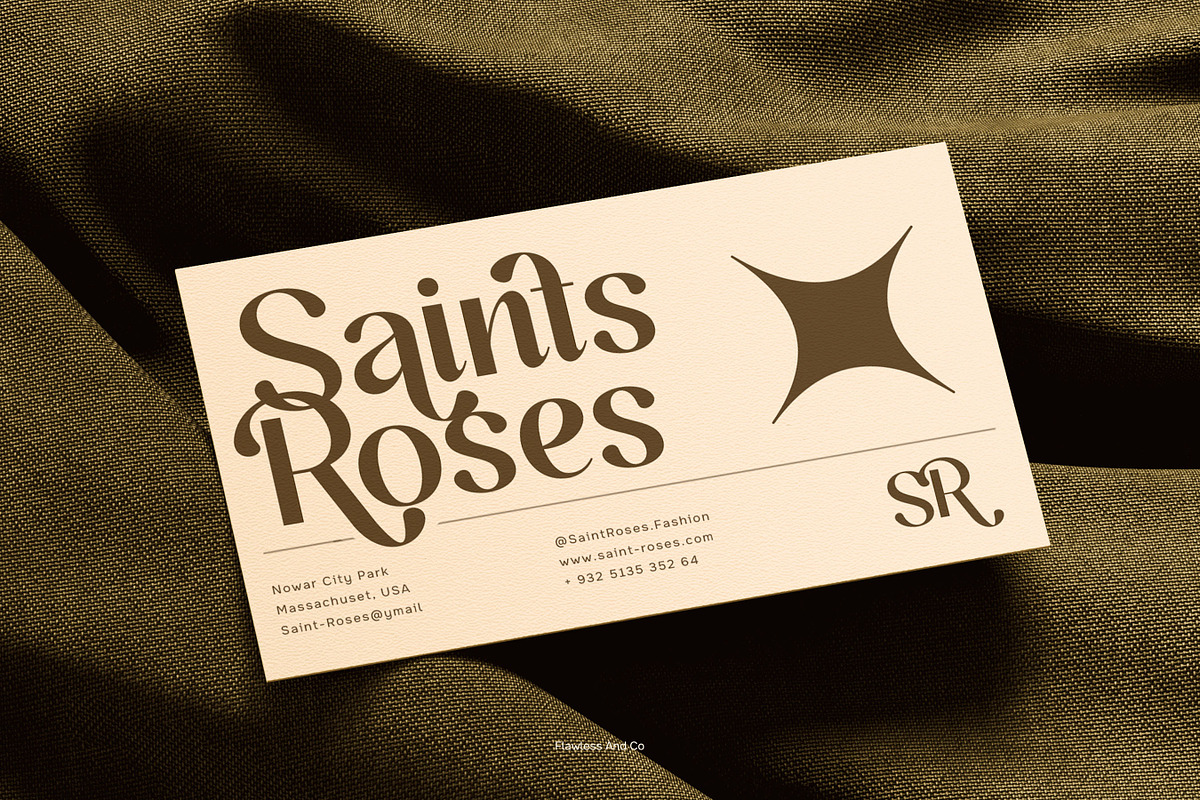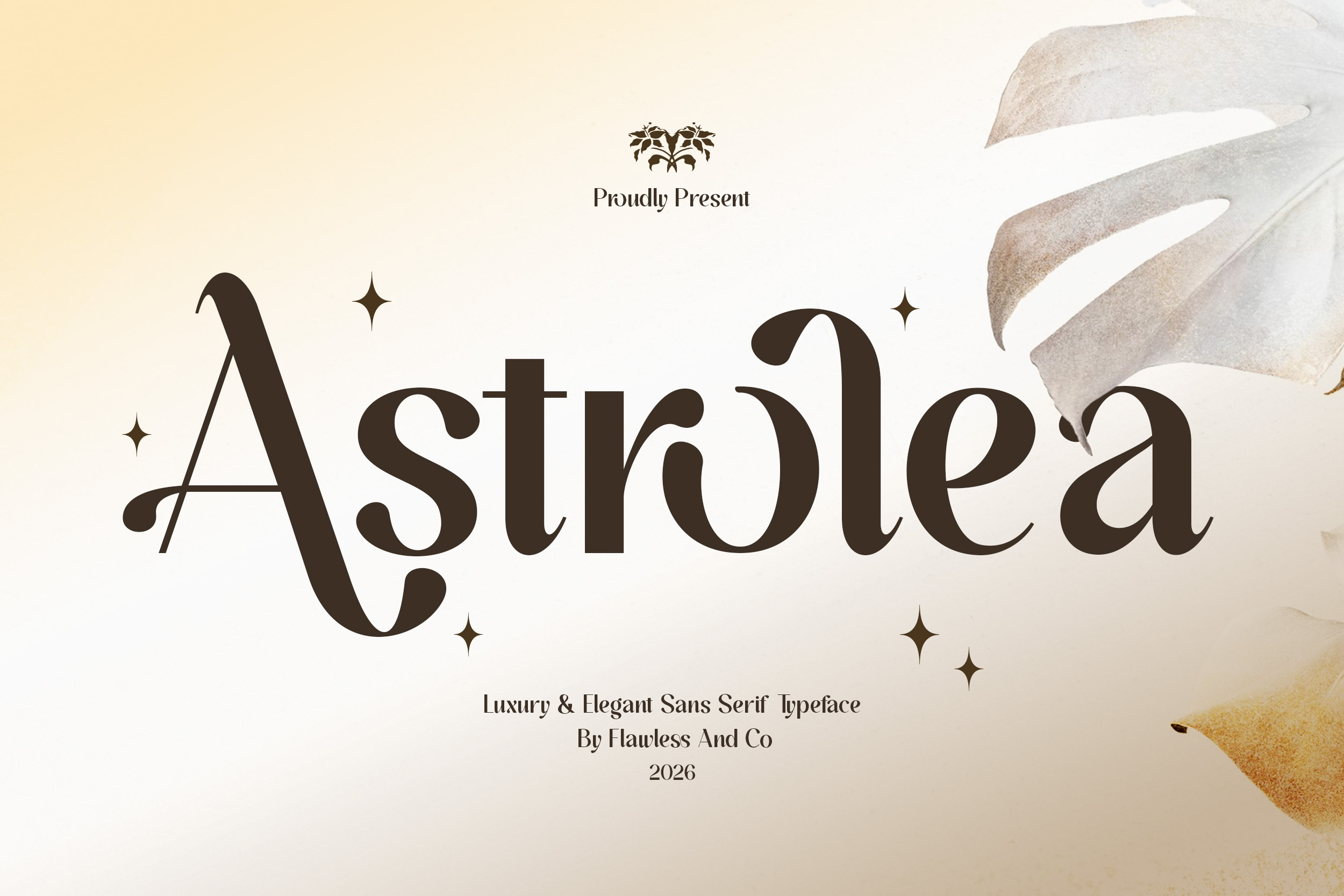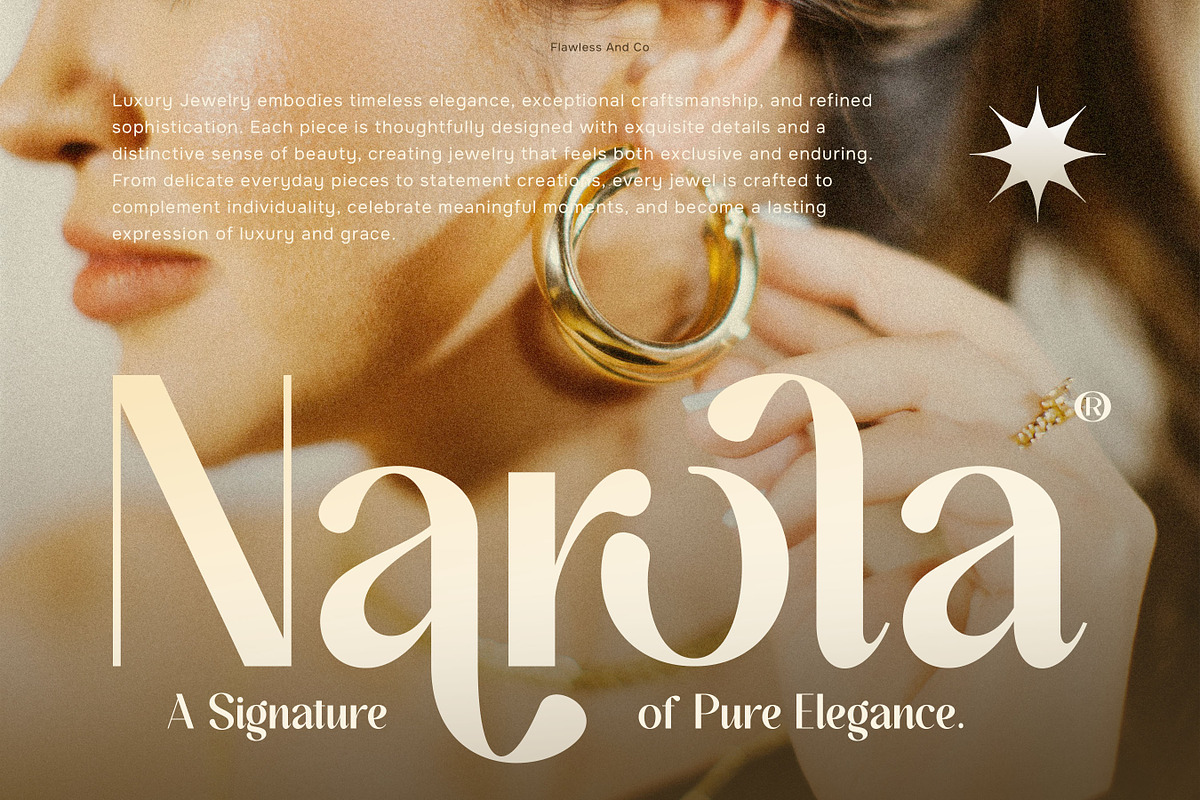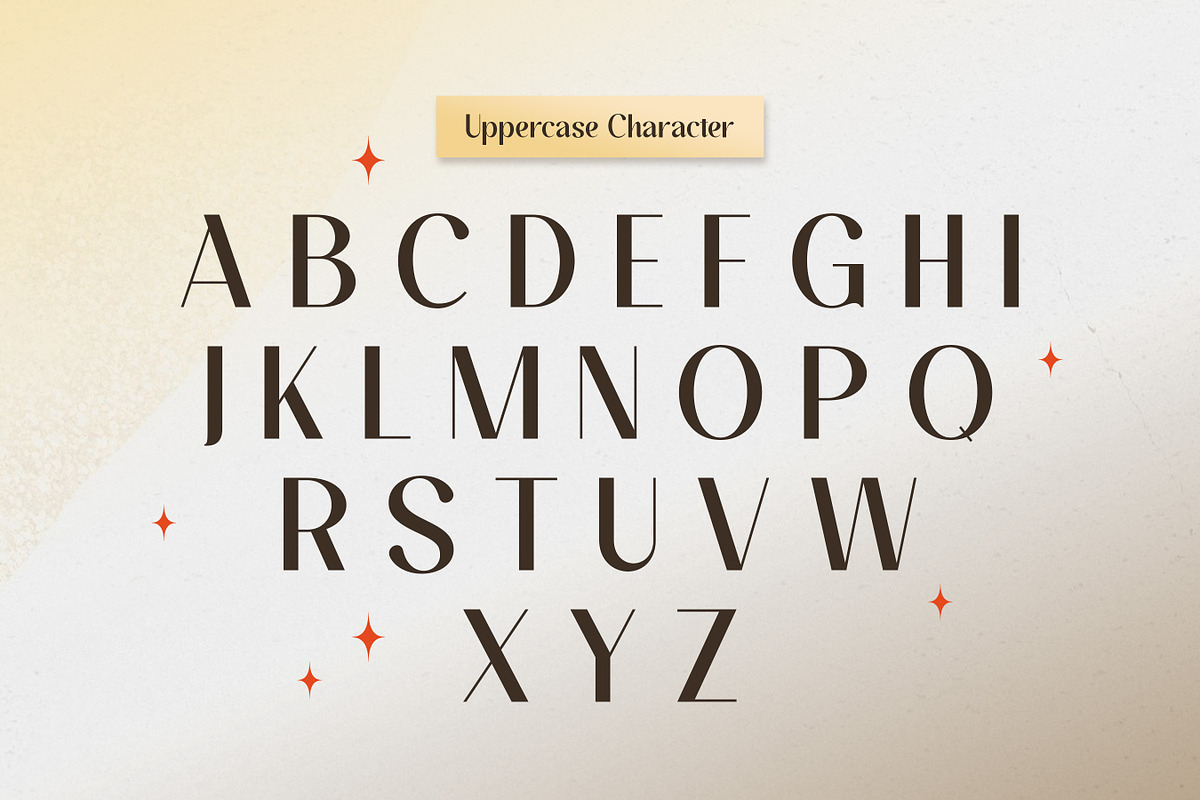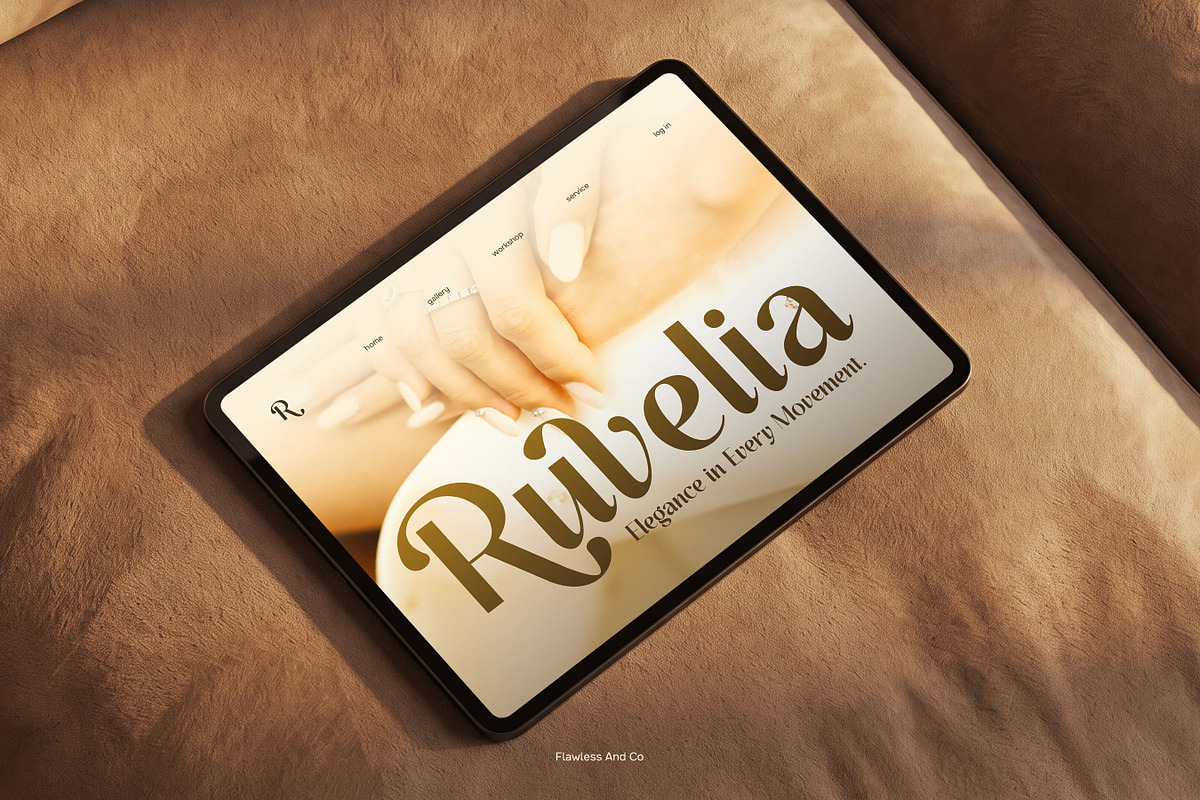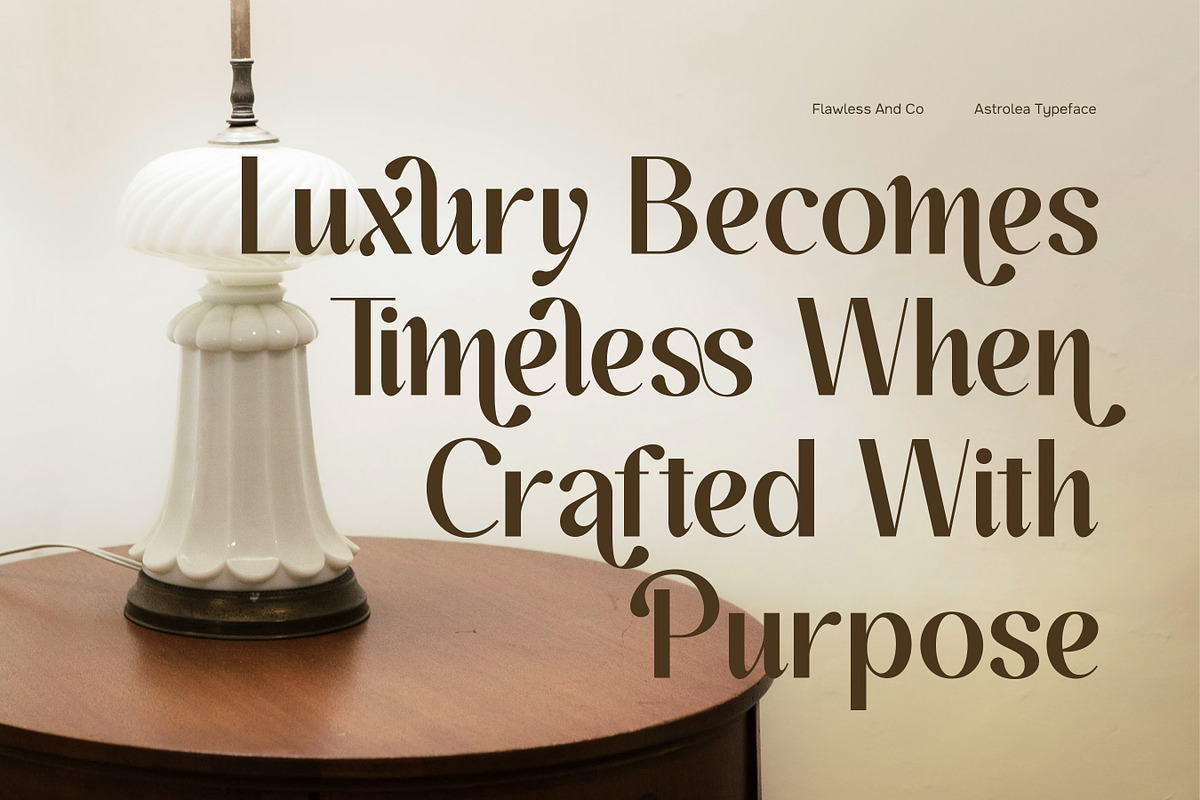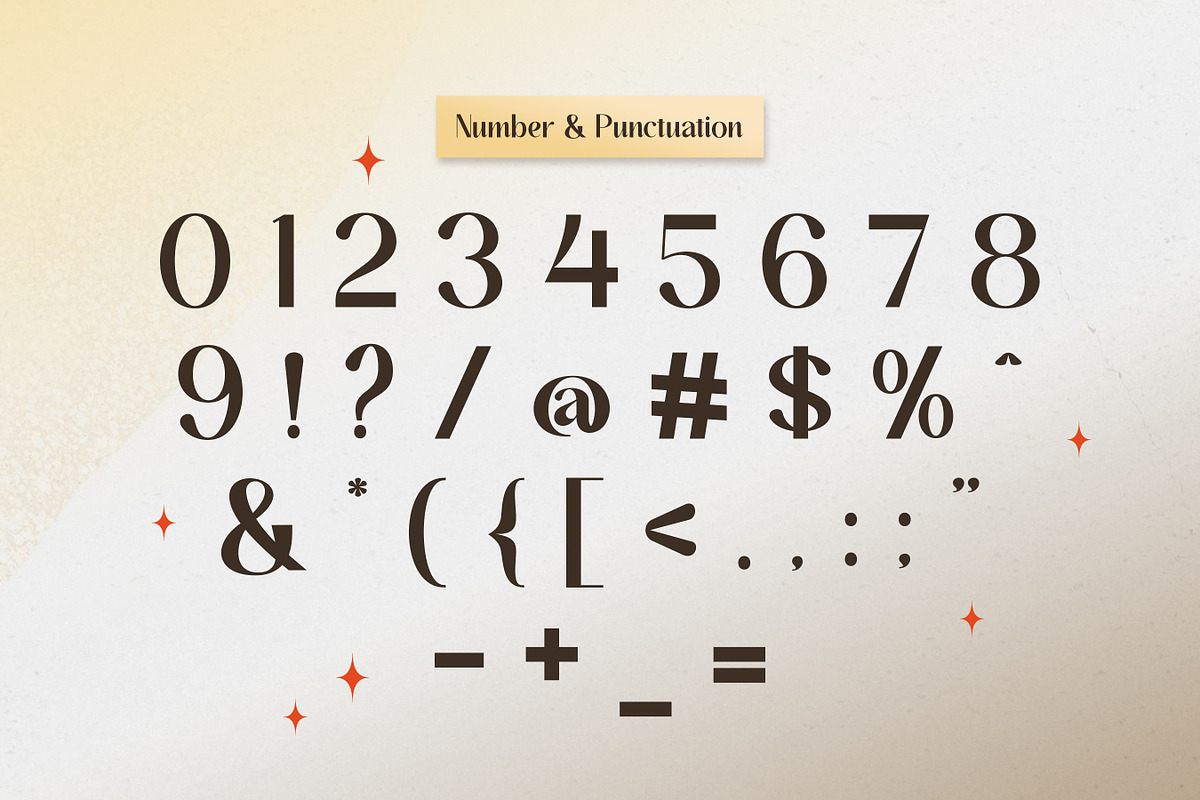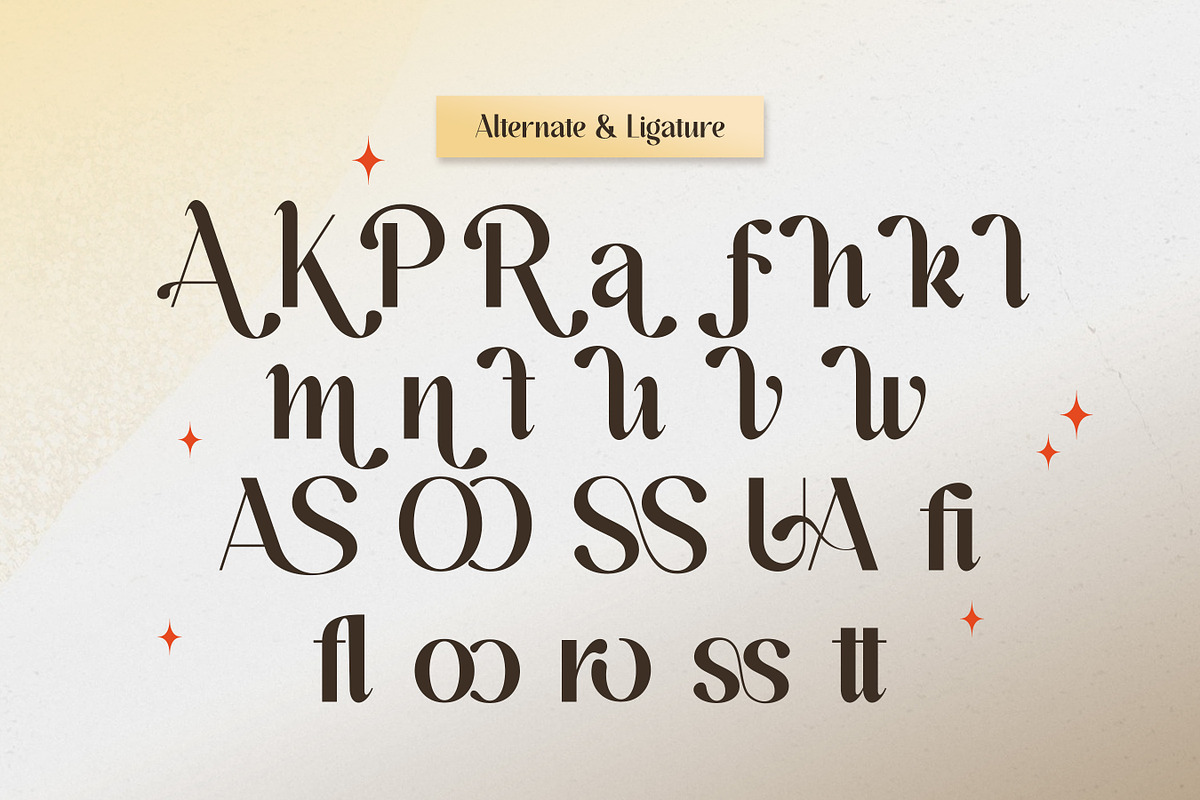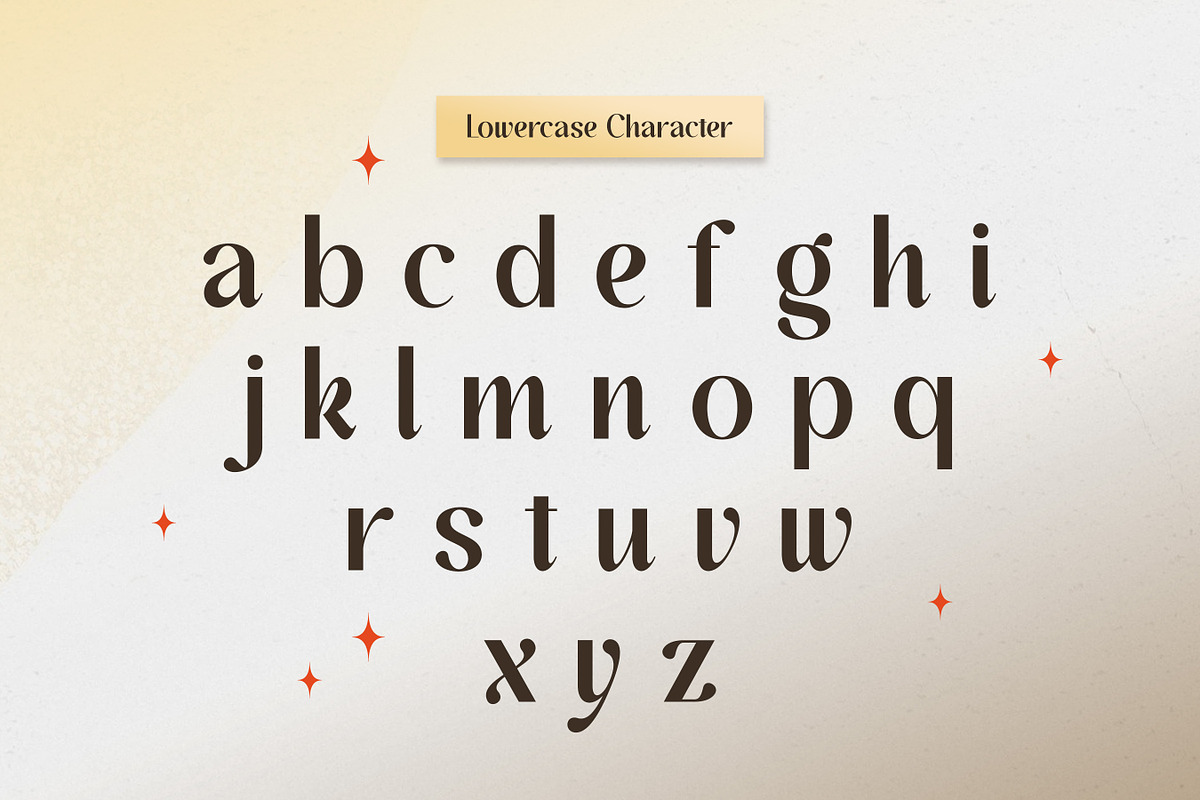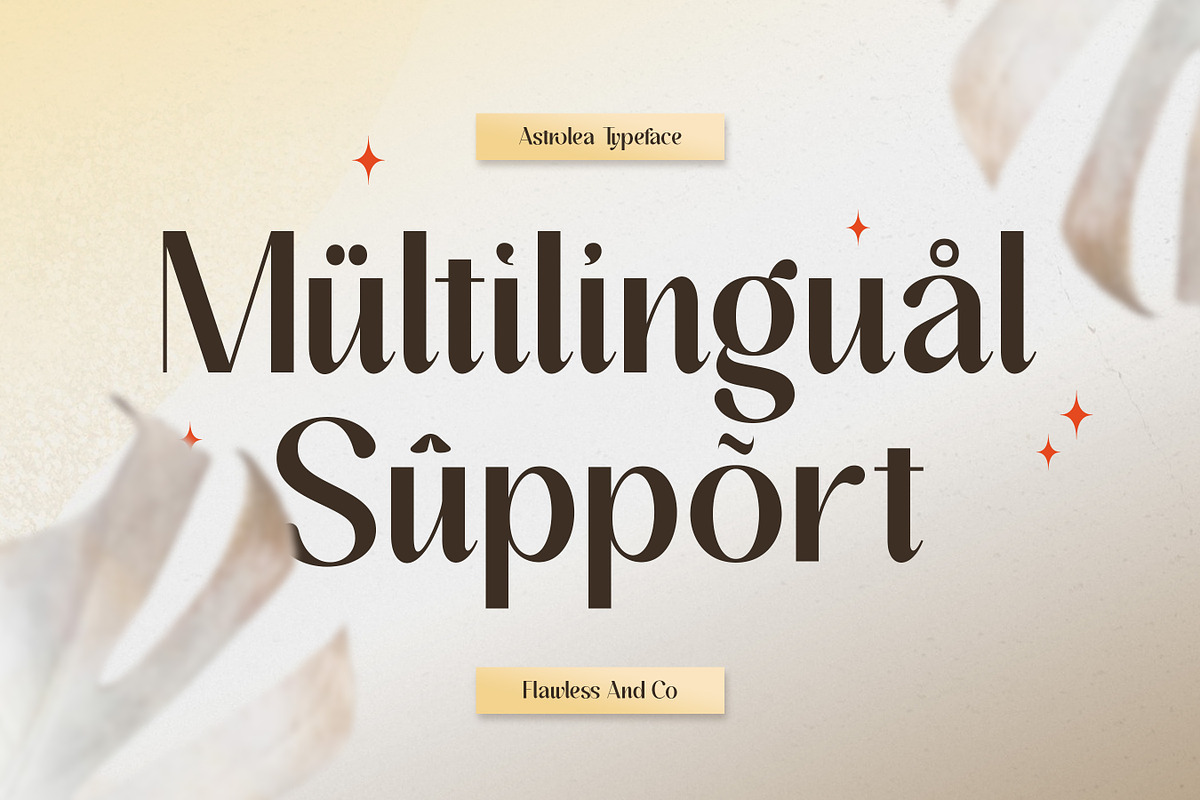
Astrolea - Elegant Sans Serif Font
Astrolea - Elegant Luxury Sans Serif Font
Astrolea is an elegant luxury sans serif font featuring high-contrast strokes, flowing curves, and distinctive letterforms. Its refined proportions combine clean structural elements with expressive shapes, creating a sophisticated display style for contemporary luxury-focused designs.
Uppercase & Lowercase Alternates & Ligatures Numerals & Punctuation Multilingual Support
Who Should Use Astrolea?
Astrolea is suitable for graphic designers, fashion brands, beauty businesses, creative studios, editorial designers, and branding professionals looking for an elegant display font with a refined and contemporary visual character.
Suitable For:
Luxury Branding Fashion Branding Beauty Branding Logo Design Editorial Design Magazine Headlines Fashion Campaigns Beauty Campaigns Product Branding Packaging Design Wedding Invitations Stationery Design Social Media Graphics Advertising Poster Headlines Creative Typography Photography Branding Elegant Brand Identity